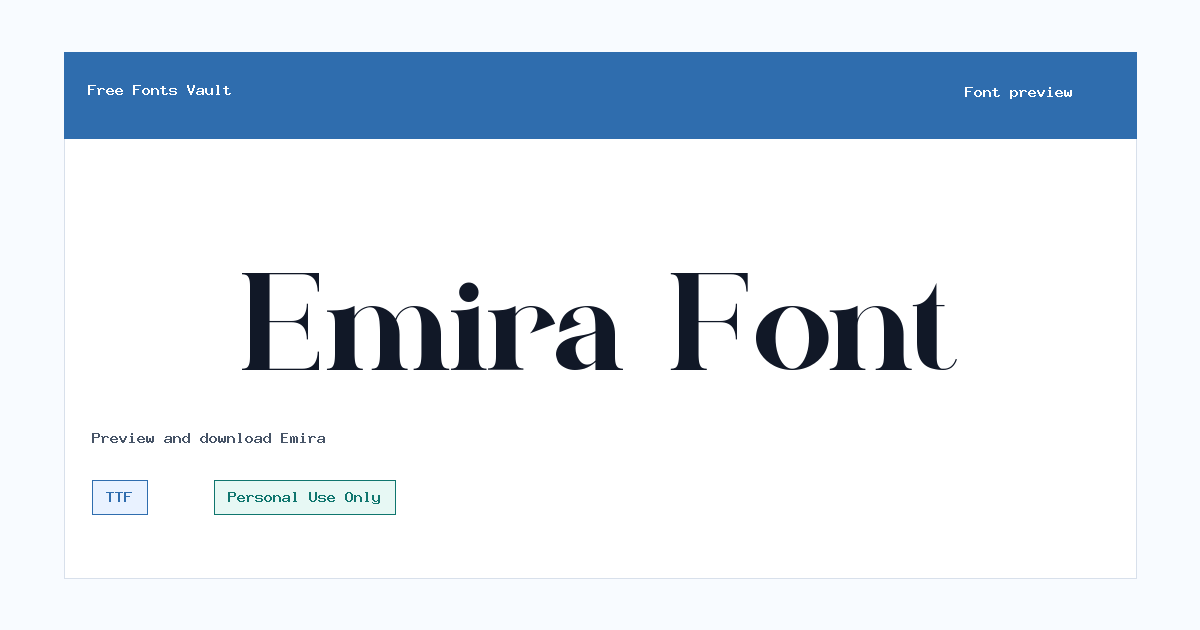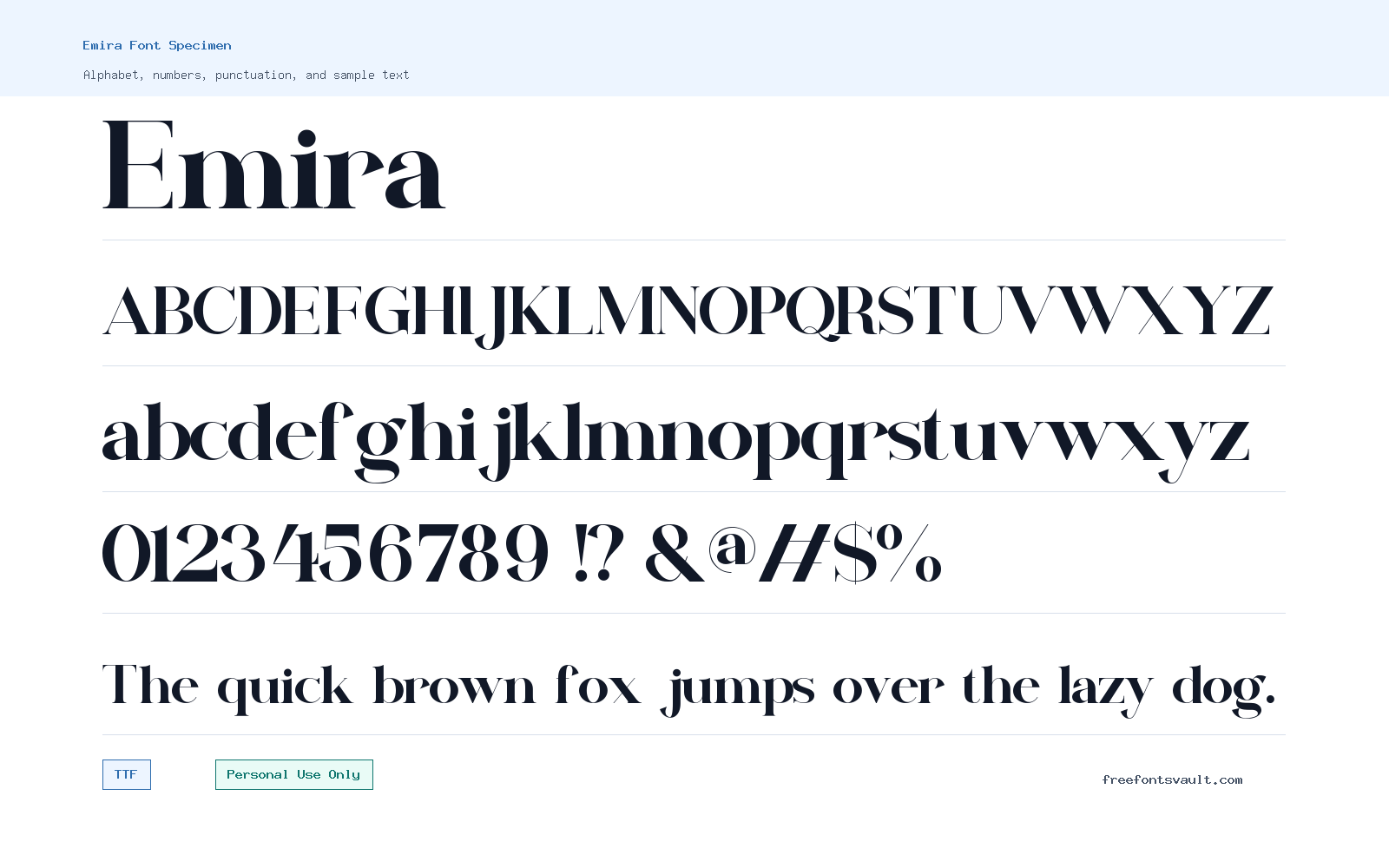
Emira
Emira Font
Emira is a serif display font for personal projects, especially when you want a refined title, logo concept, poster headline, or invitation-style wordmark.
About Emira Font
Emira works best as a display face rather than a long-reading text font. Public font listings place it in serif, heading, and logo categories, which makes it a better fit for short, controlled pieces of text: a name, a title, a label, a cover line, or a decorative phrase. If you are testing it for branding, keep the preview text short and look closely at letter spacing, uppercase shapes, and how repeated letters sit next to each other. Display serif fonts can look strong in a single word but may need extra spacing when used across a longer headline.
For posters and social graphics, Emira can carry the main headline while a simpler supporting font handles the smaller information. Pair it with a clean sans serif for dates, captions, navigation labels, and body copy. Avoid pairing it with another highly decorative serif, because two expressive fonts can compete and make the design feel crowded. If the headline uses Emira, let the second font stay quiet: neutral sans serifs, simple grotesks, or restrained humanist sans fonts are safer choices.
• Serif display direction, with public listings also associating it with headings and logo-style use
• Suited to short text settings such as names, titles, invitations, packaging concepts, and poster headlines
• Better for display typography than paragraph-length reading
• Personal logo concepts and wordmark experiments
• Poster headlines and editorial-style title graphics
• Invitation text, event names, and decorative announcements
• Brand mood boards and presentation mockups
• Packaging concepts, quote images, and social media drafts for non-commercial use
Install the TTF file, type your real project text, and test it at headline sizes before committing to a layout. Adjust tracking for short logo-style words, check punctuation and numbers if your design uses them, and pair Emira with a clean sans serif for smaller supporting text. Keep it out of body paragraphs and small UI labels unless the preview remains clear.
What kind of font is Emira?
Emira is listed as a serif font and is associated with display uses such as headings and logo-style typography.
Is Emira good for body text?
It is better suited to short display text. For paragraphs, pair it with a simpler, more readable text font.